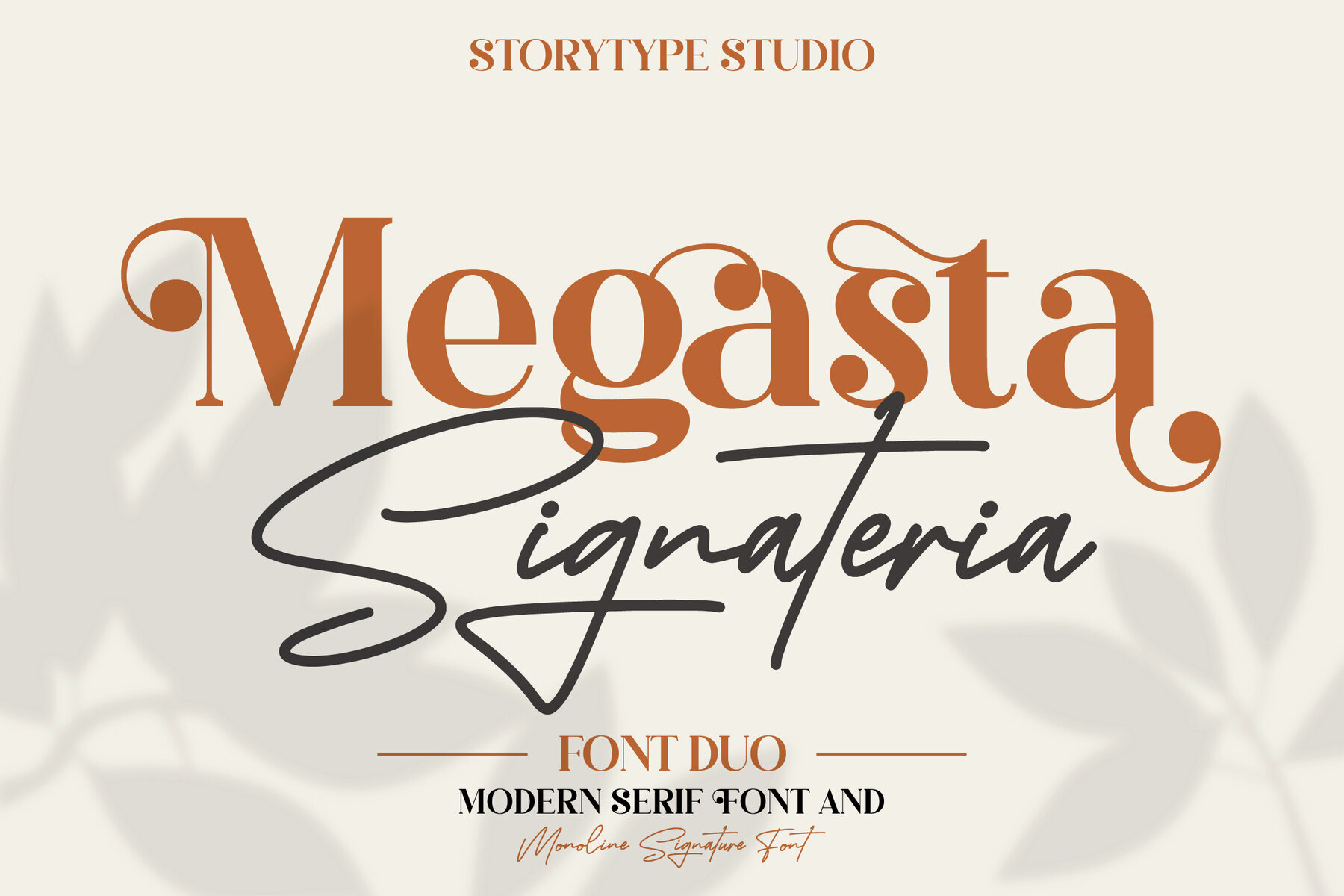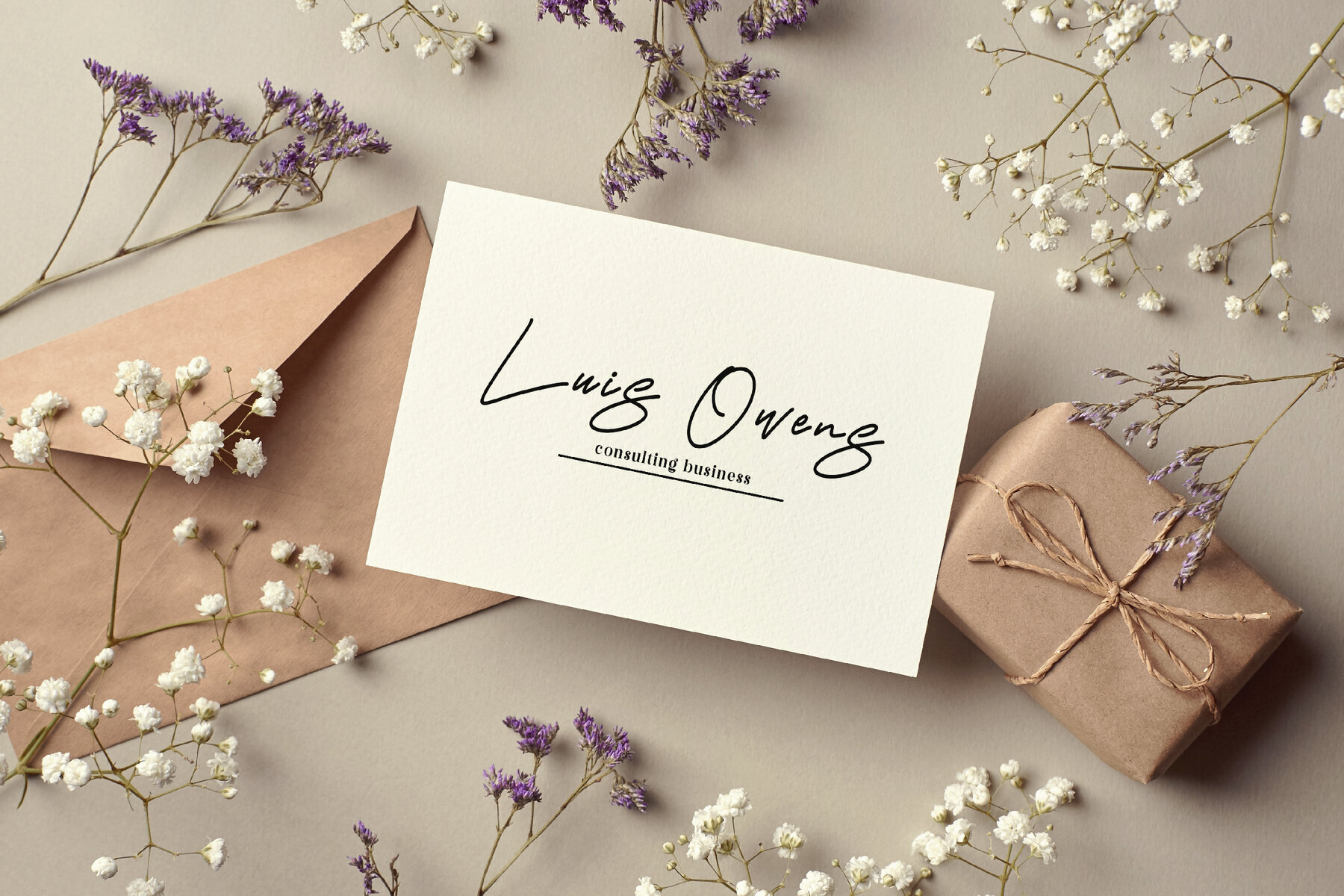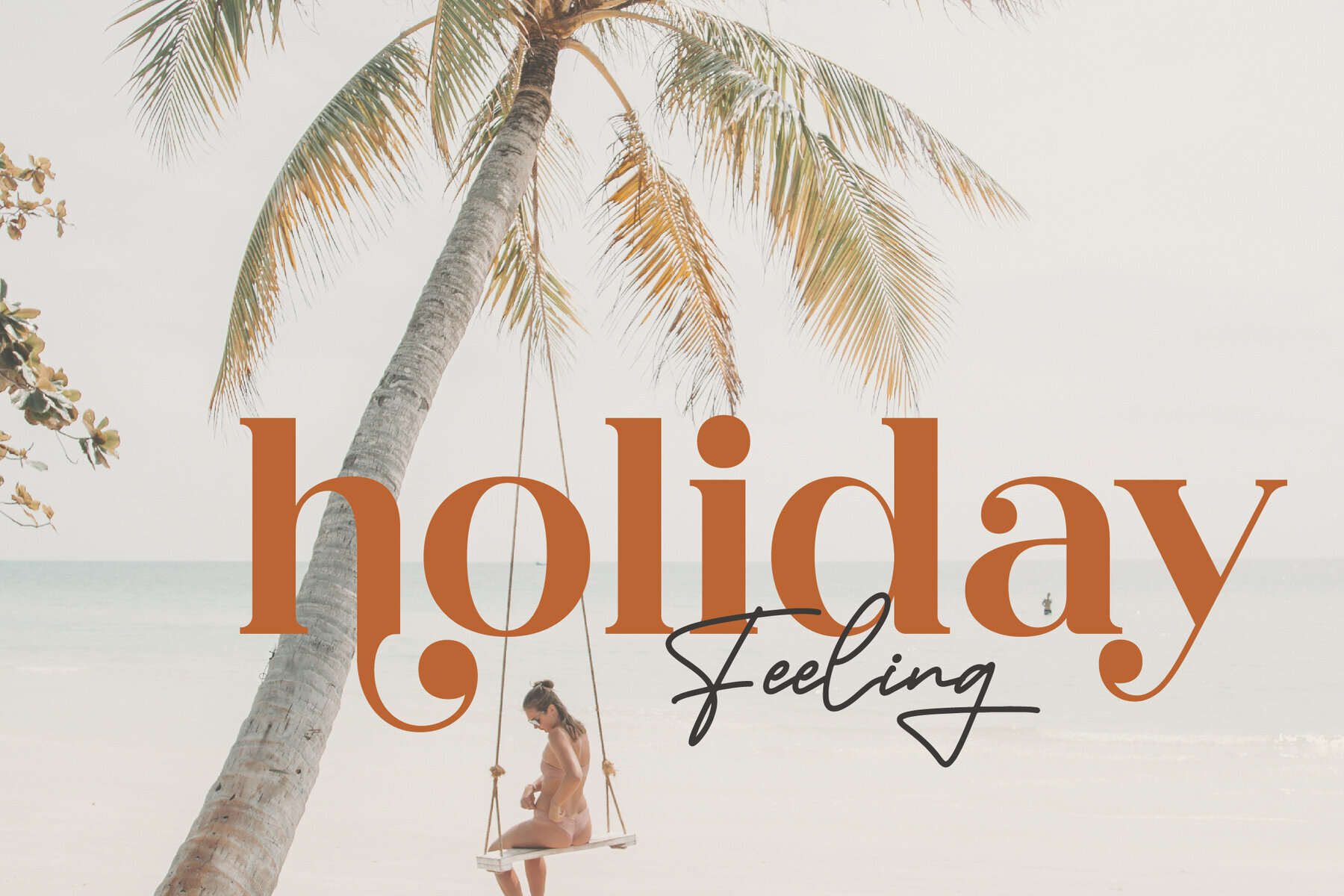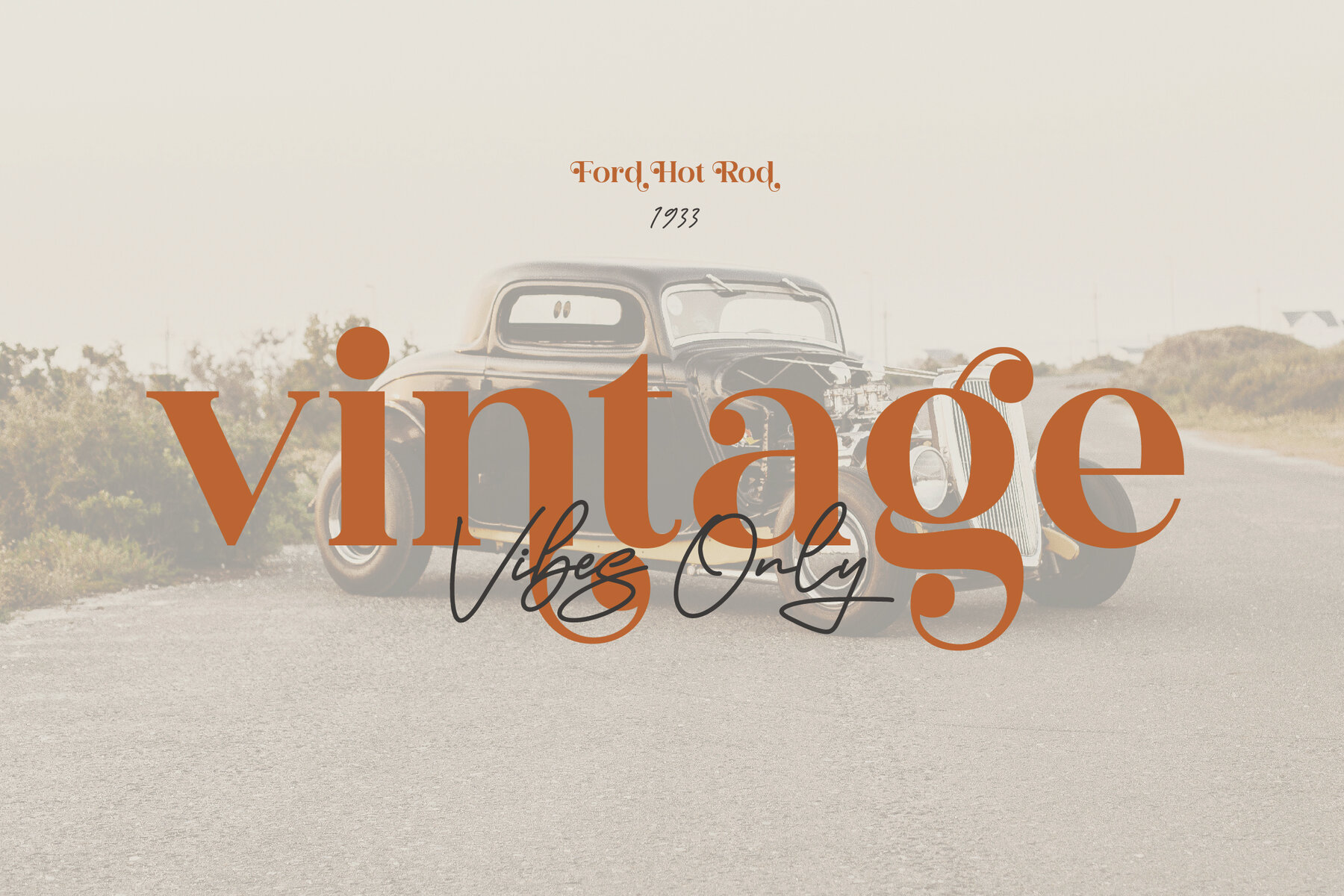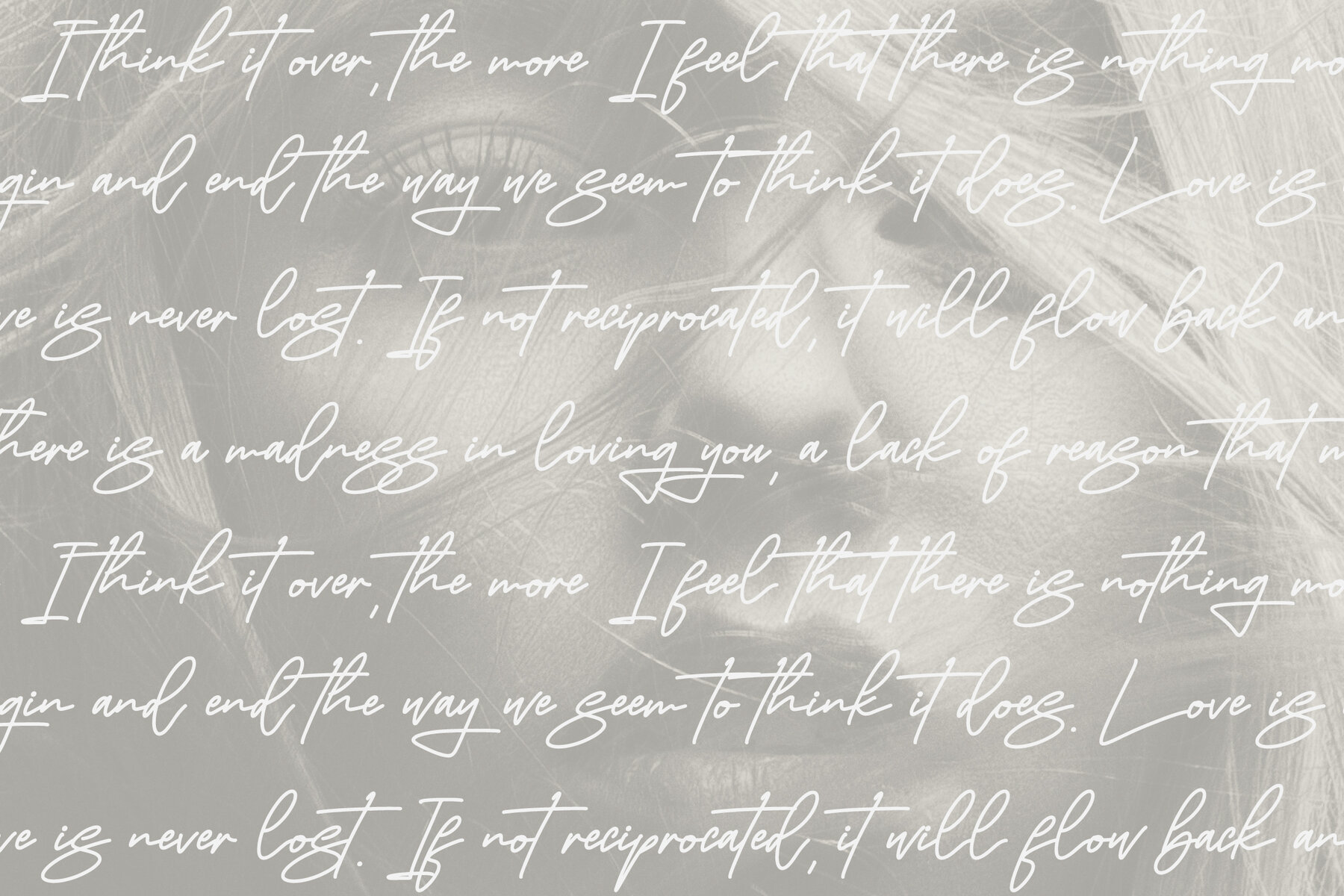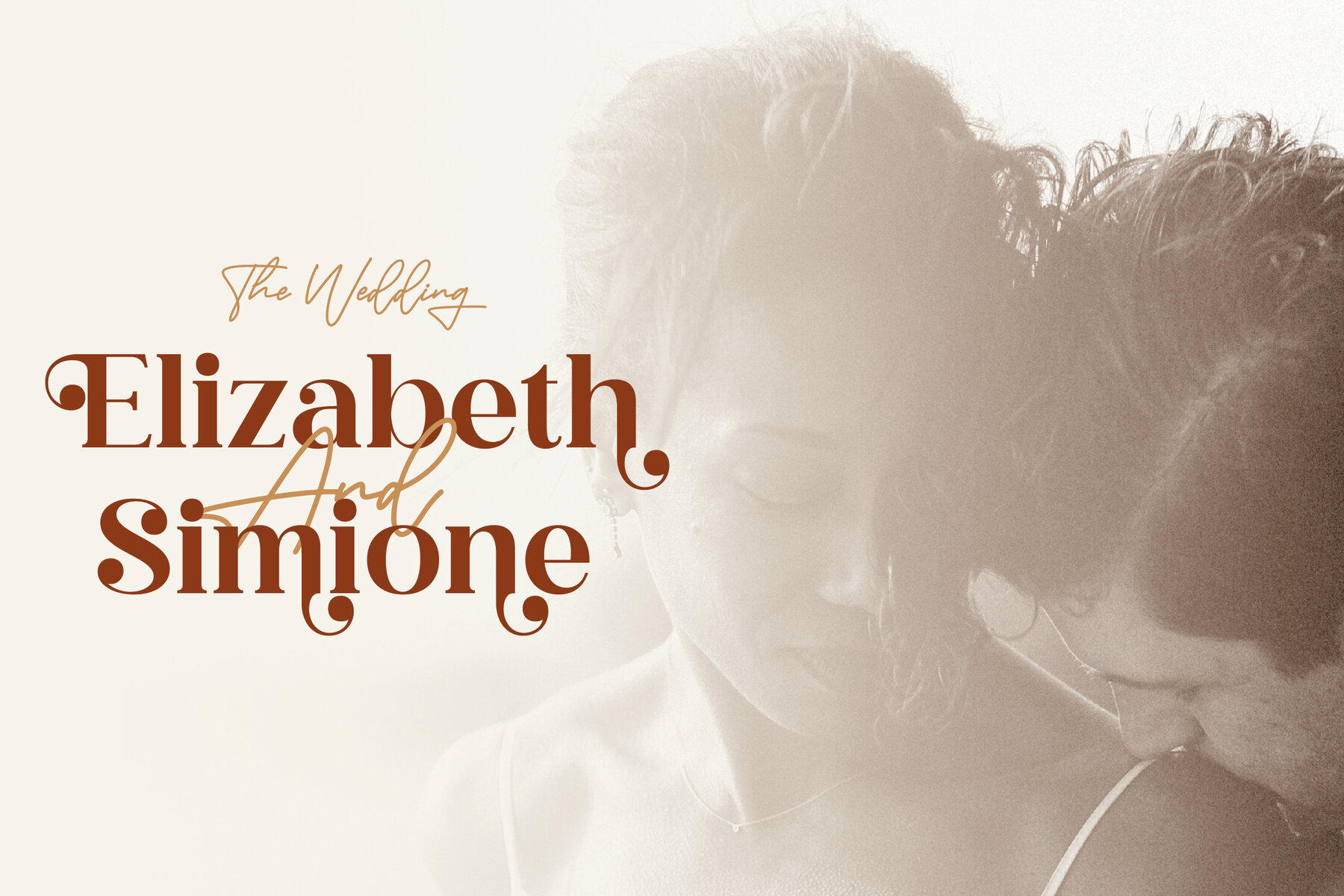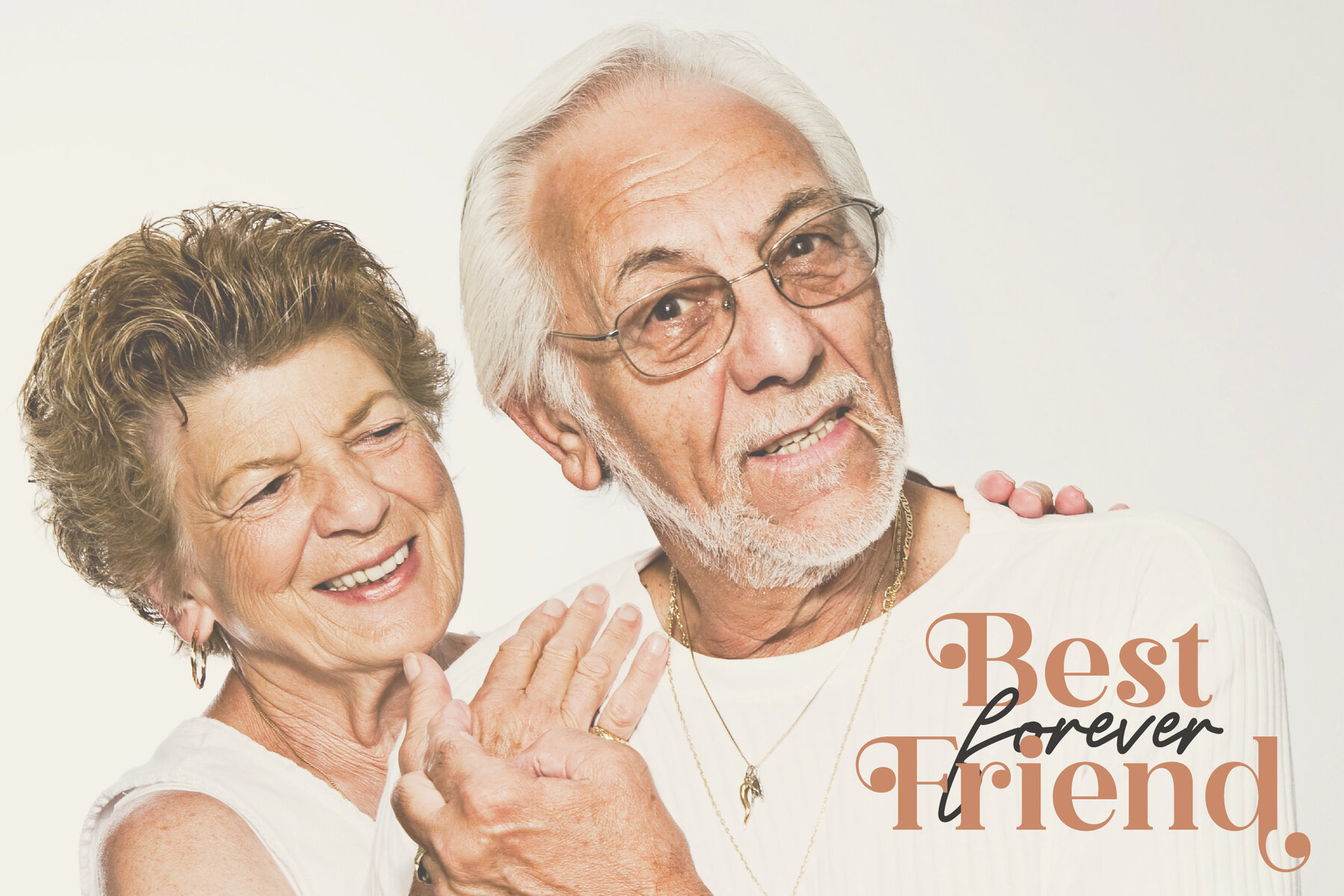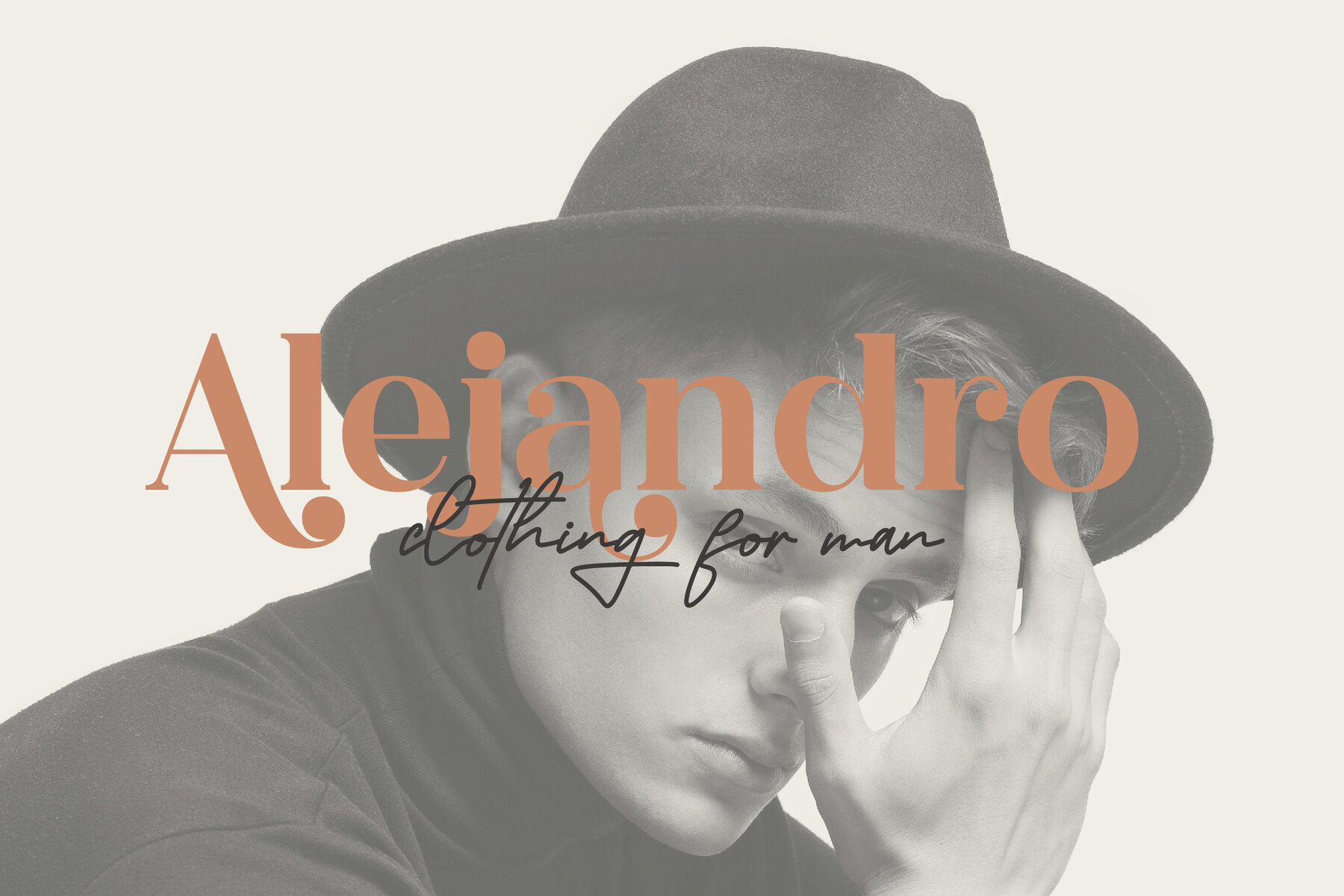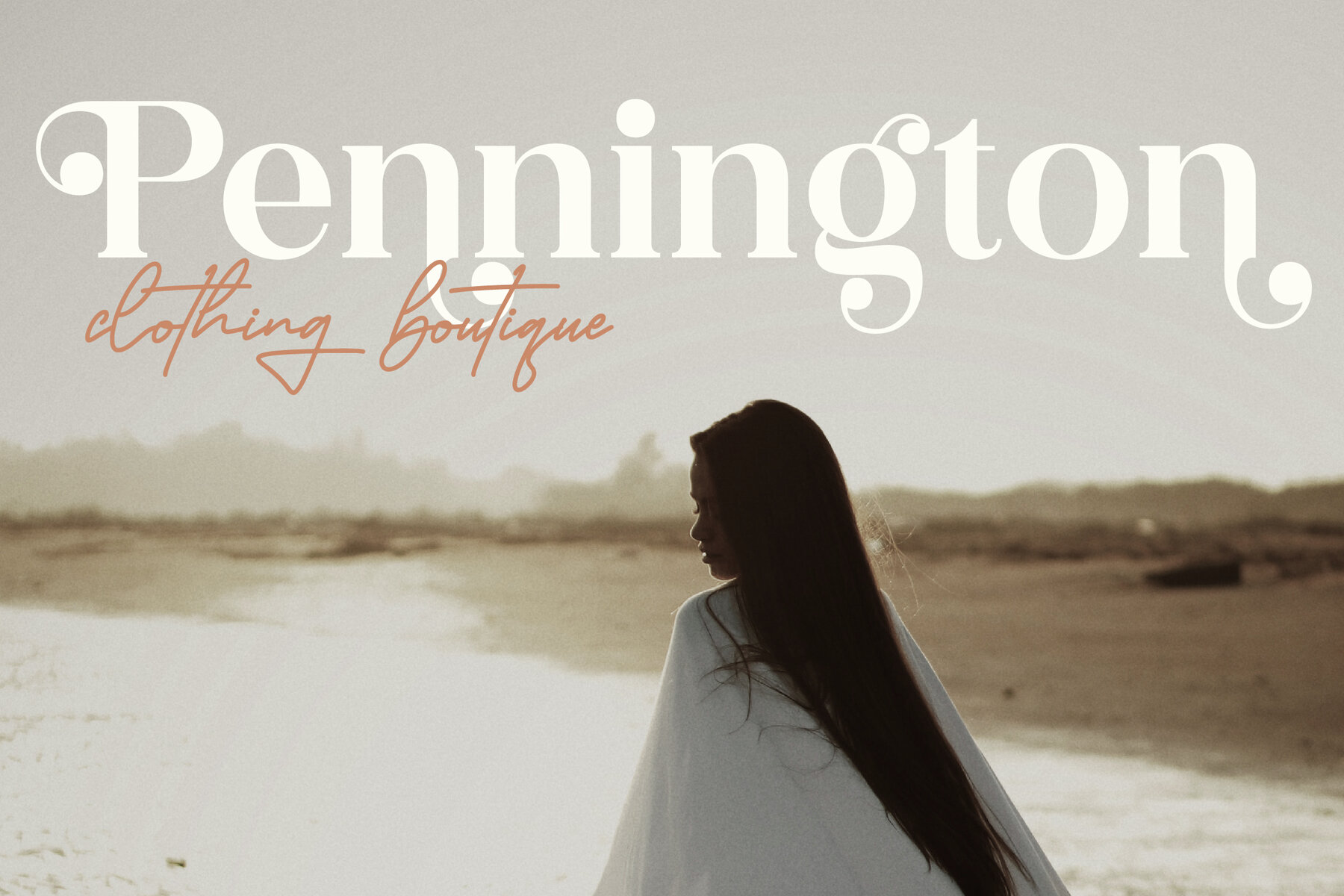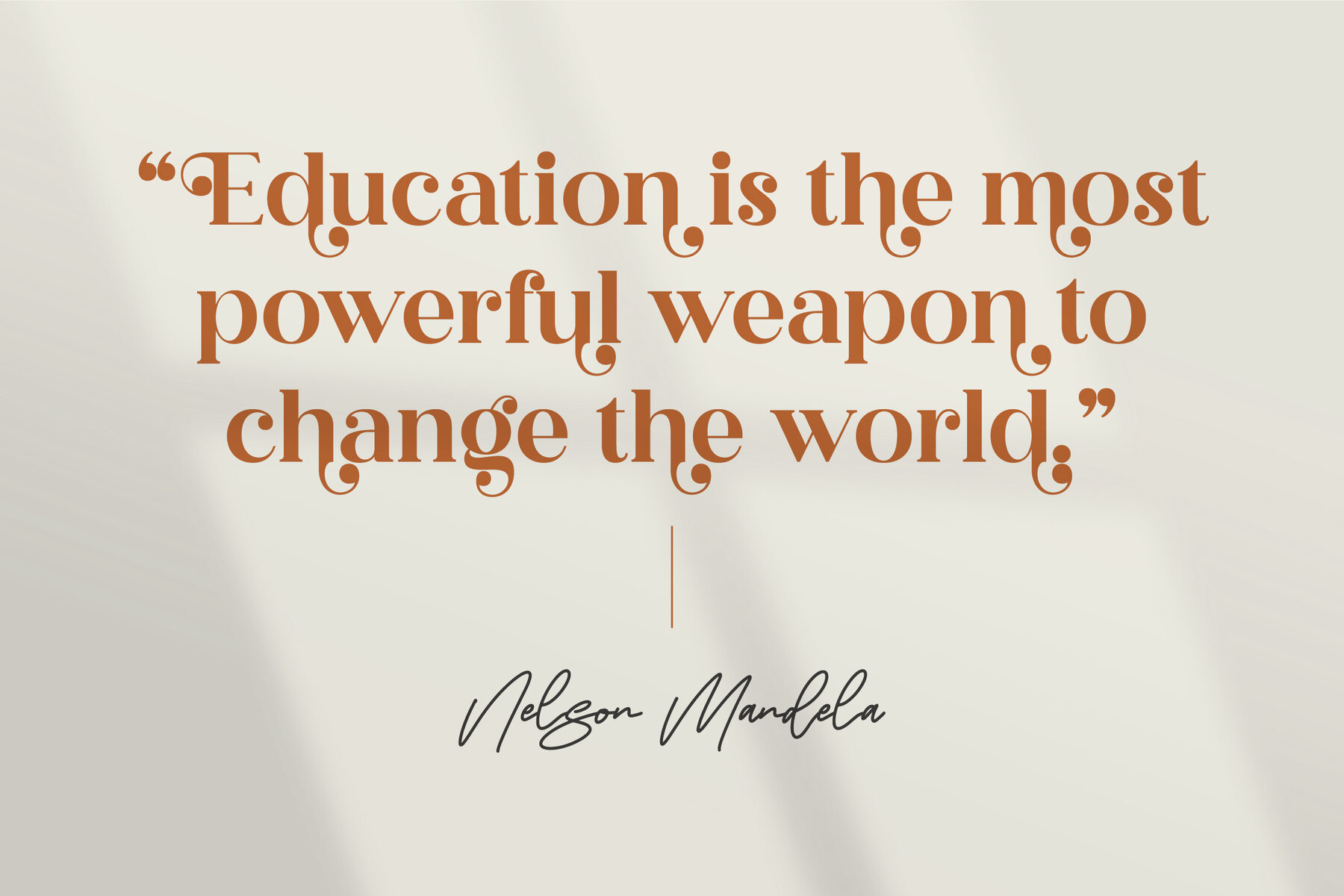
Megasta Signateria Font Duo
Introducing Megasta Signateria Font Duo, a refined combination of serif modern and classic typeface with a distinct monoline signature. This versatile font duo brings a unique style that exudes modern elegance, making it perfect for creating luxury logos, book or movie titles, fashion branding, magazine layouts, clothing designs, and captivating quotes. What’s Included: